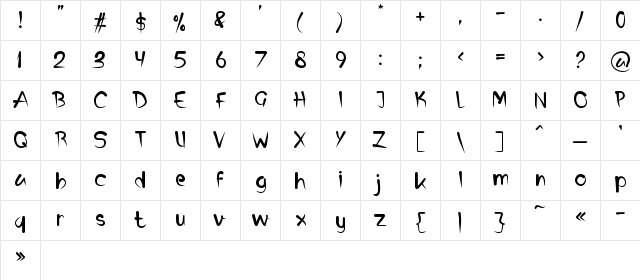
Biren Regular
| Designer | This font designed by Haikal (Sameeh Media) |
Design Context for Biren Typeface
Biren takes a measured approach to typography — its balanced proportions and neutral character make it a reliable workhorse for both digital and print work.